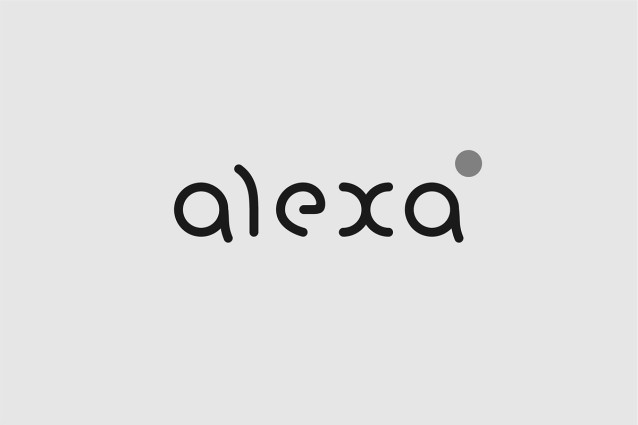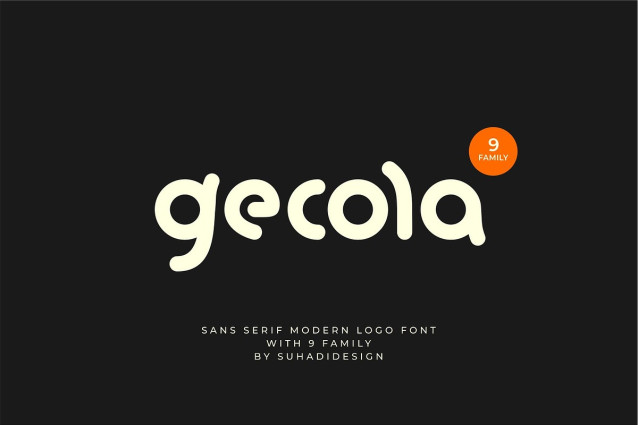
Gecola Font
Gecola Font is a cool font for millennials and genz, presented with a modern style that’s become a market favorite. We’ve kept this font looking cool, classy, ​​modern, stylish, up-to-date, and easy to use. Gecola is the perfect choice for logos, brands, companies, startups, labels, fashion, branding, brand names, and other projects. Gecola is here to take your designs to the next level.